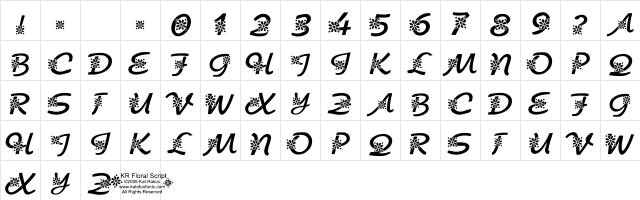
KR Floral Script Regular
Design Context for KR Floral Script Typeface
KR Floral Script flows with the natural rhythm of handwritten lettering, making it ideal for designs that call for warmth and personal expression.
Font Pairing: Combine KR Floral Script with a simple geometric sans for maximum contrast — the tension between flowing curves and clean structure is a classic typographic pairing.
Pro Tip: Use KR Floral Script for short runs of text — names, titles, or taglines. Extended body copy in script faces tires the eye quickly.